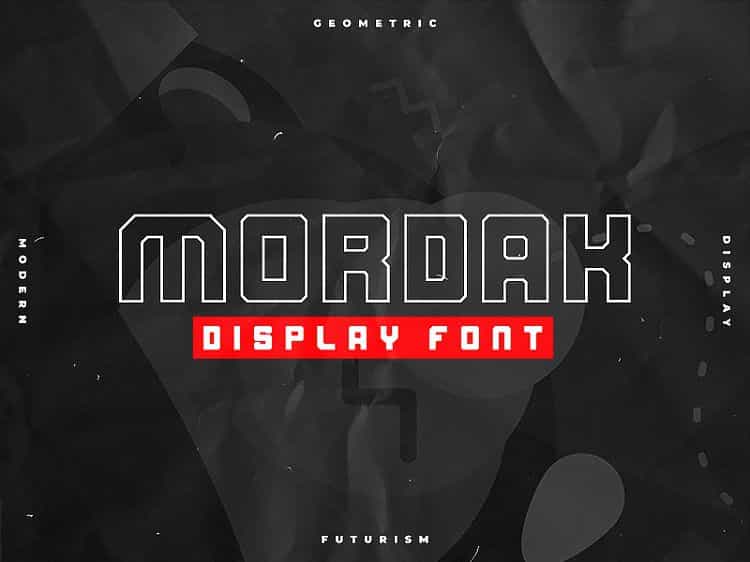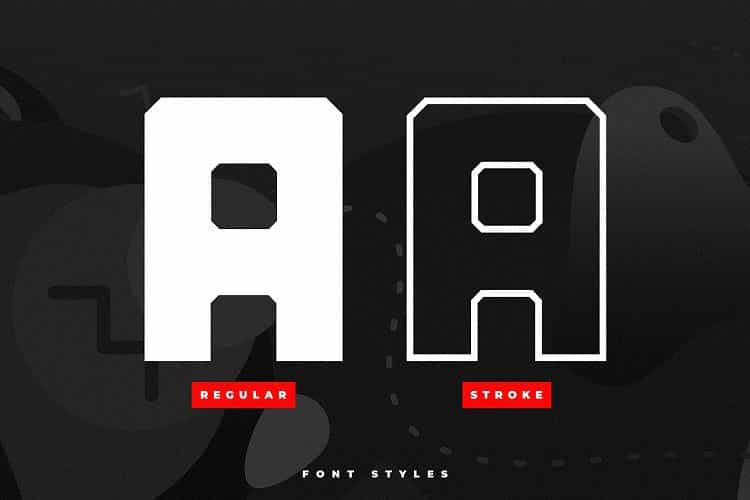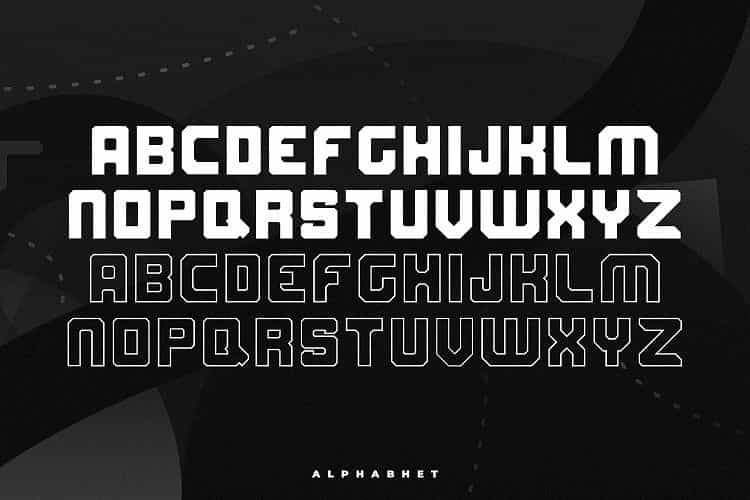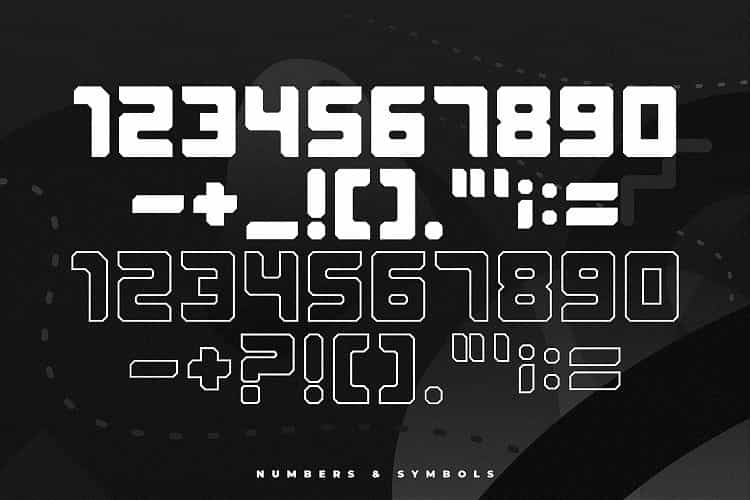
Introducing Mordak Font. Mordak is a contemporary, geometric, futurism display font which includes letters, numbers and a few symbols. The concept of the font is grounded in space or sci-fi. Thus, these can be easily applied for the designs associated with modernism like androids or robots which makes the whole design to have a sci fi impression.